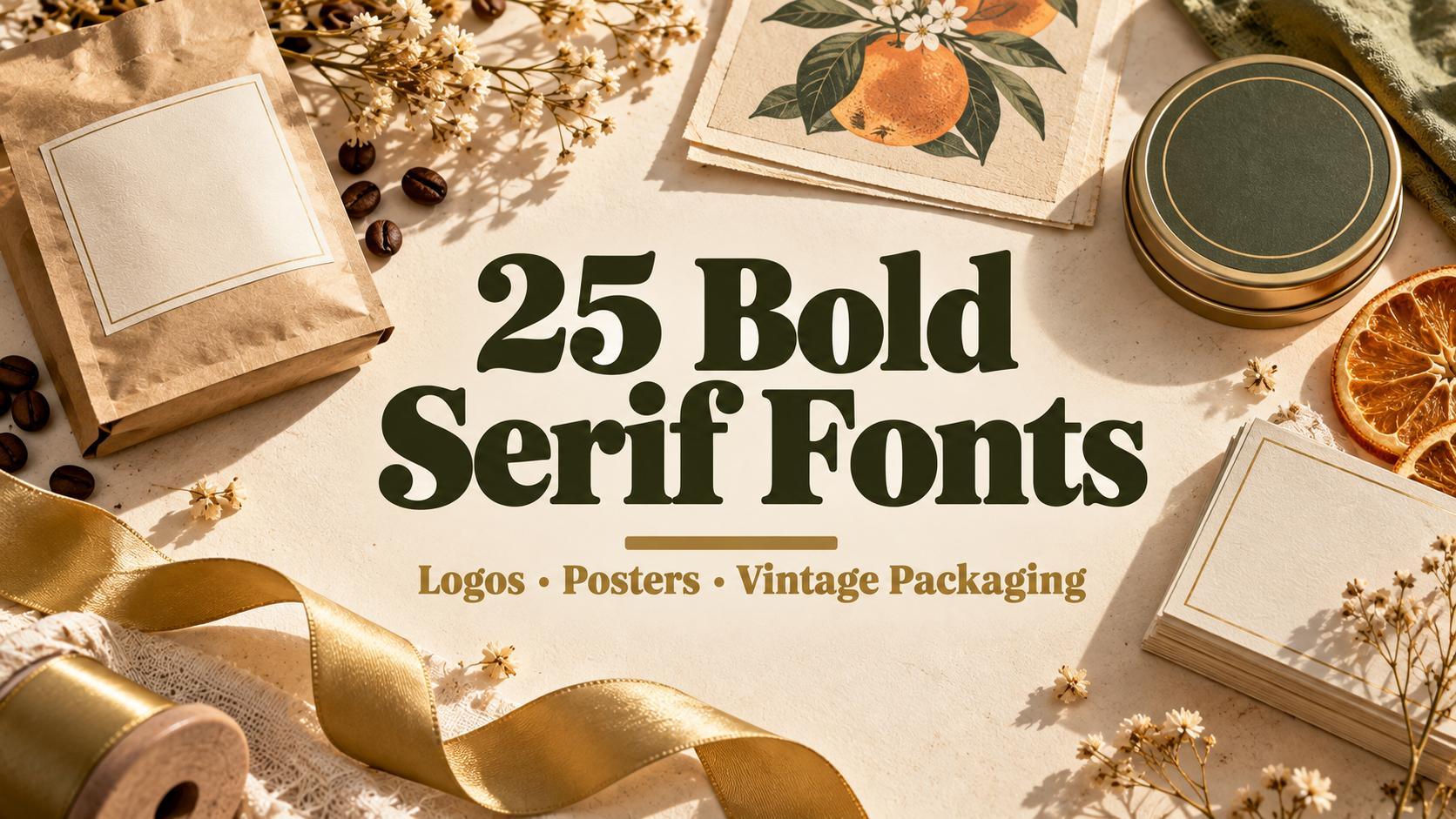
25 Bold Serif Fonts for Logos, Posters and Vintage Packaging
Bold serif fonts combine the character of classic serifs with the weight of a headline font. They make logos look confident, posters impossible to miss and packaging feel warm and memorable, especially when the style leans vintage.
This collection brings together 25 bold serif fonts from Fontspring, grouped by where they work best: logos, posters and vintage packaging. Each entry describes how the letters look, what the font does well and how to use it.
Bold Serif Fonts for Logos
A logo has to work large on a sign and small on a business card. These bold serif fonts are dense, clear and confident, so a brand name stays readable at any size.
1. Delvona Font by Mulkan Nazir
Best For: brand logos, shop signage, bold website headers
Delvona Font is heavy and compact, with short, sharp serifs and a slightly retro rhythm. In the preview it sits between bright stripes in blue and red, and the word reads instantly even from a distance.
The family has nine styles. It works well for wordmarks that need to be bold without looking old-fashioned, and it holds up on signs, shop windows and social media profile images.
2. Acosta Font by Zane Studio
Best For: fashion and lifestyle logos, boutique branding, product names
Acosta Font is a strong serif with crisp contrast and one memorable detail: the s in the preview has a curling tail that turns the brand name into a small signature.
The preview lists 18 fonts in nine weights with obliques and a variable font. That range lets one family cover the logo, the tagline and the website headings.
3. Honest Font by Diego Aravena
Best For: friendly brand logos, food and drink branding, headlines
Honest Font is dark, solid and very readable, with sturdy serifs and a warm, approachable shape. The pink preview shows how confidently it fills a wide space.
The preview mentions seven weights plus matching italics, 14 styles in total. The heaviest weight is made for the logo, the lighter ones for menus and product descriptions.
4. Chabrier Font by Dieter Hofrichter
Best For: premium logos, restaurant branding, book and label titles
Chabrier Font combines round, almost geometric bowls with classic serifs. The preview sums it up as geometry and elegance, and the bold weight looks rich and calm at the same time.
The preview lists eight weights and 16 styles. It is a good choice for a brand that wants a bold serif with a more refined, grown-up tone.
5. Archeron Pro Font by Olivier Gourvat
Best For: wide wordmarks, café and bakery logos, packaging titles
Archeron Pro Font is wide and soft, with bracketed serifs and warm curves. In the preview it is shown in a light brown on grey, and even the bold weight feels welcoming.
The family has 21 styles. Its width makes short names look generous and stable, which suits logos for cafés, bakeries and small shops.
6. Askan Font by Dieter Hofrichter
Best For: editorial logos, publishing brands, strong headlines
Askan Font is a contemporary serif with firm, slightly angular serifs. The preview shows the black weight: dense, confident and very clear.
The preview describes it as a family of 18 fonts, romans with matching italics. It suits brands that want a bold serif with a serious, editorial voice.
7. Norfolk Font by AF Studio
Best For: logos with a tagline, labels, business cards
Norfolk Font is a pair: a bold serif combined with a narrow sans serif. The preview shows the dark serif name over a large outlined version, which hints at how the two parts work together.
The designer kept it simple on purpose: there are no alternate characters, only ligatures that stop letters from colliding. It supports many Latin-based languages, including English, French, German, Spanish and Portuguese, so the same logo system can travel.
Bold Serif Fonts for Posters
Posters need letters that catch the eye from across the room. Heavy weights, high contrast and playful shapes make these fonts ideal for headlines, campaigns and events.
8. Abruzzo Font by Emil Bertell
Best For: event posters, magazine covers, bold campaign headlines
Abruzzo Font is a high-contrast bold serif, as the preview says, with heavy vertical strokes and sharp, thin details. Set in white over a black-and-white photograph, it looks like a film or festival poster.
Use it large and tight: a single word or a short line across the top of a poster. Its contrast gets lost at small sizes, so let a simple sans serif carry the dates and details.
9. ZT Bros Oskon 90s Font by Khairun Nas
Best For: retro posters, fashion campaigns, album covers
ZT Bros Oskon 90s Font has a nostalgic, nineties editorial feel. The preview stacks the name in a tall, cream-coloured display style over a dark photograph.
The preview lists 72 styles, including condensed, expanded and italic versions. That makes it easy to build a whole poster, from a narrow headline to a wide subtitle, with one family.
10. Prody Font by Estudio Calderón
Best For: posters, social media graphics, friendly campaign headlines
Prody Font describes itself in the preview as bold, fun and comfy, and the letters live up to it: soft serifs, round shapes and a relaxed, happy weight.
The preview shows four weights, from Regular to Bold. It is a good poster font for brands that want to sound cheerful rather than serious.
11. Firelli Font by Teddy Derkert
Best For: sale posters, food packaging, stickers and badges
Firelli Font is chunky and rounded, with short, soft serifs. The preview surrounds the name with sticker-style badges, and the font itself looks like it belongs on a label or a price tag.
The family has 14 styles. It is made for loud, short messages: a product name, a sale headline or a badge on a box.
12. Courage Font by Neil Summerour
Best For: posters, book covers, retro headlines
Courage Font is very heavy, with ball-shaped terminals and deep, round counters. The preview shows sample glyphs in tiles, and even the question mark looks bold and friendly.
The family has two styles. Treat it as a headline font only and give it plenty of space; one or two words are enough to fill a poster.
13. Cooper Poster Font by FontHaus
Best For: posters, retro signage, playful headlines
Cooper Poster Font has the soft, rounded serifs and heavy, cushioned shapes of the classic Cooper style. In the preview it is set in bright pink above a paint brush, and it looks warm and cheerful.
It is a font for big, friendly headlines. Pair it with a clean sans serif and keep the palette bold to match its seventies energy.
14. Blood Orange Font by Emil Bertell
Best For: juice and food packaging, posters, restaurant signage
Blood Orange Font is heavy and bouncy, with round bowls and lively, uneven rhythm. The preview sets it over a glowing orange, with the tagline luscious and fragrant.
It works best for food, drink and anything with a juicy, fresh mood. Keep the word short so the playful shapes have room to show.
15. Brado Quena Font by Sign Studio
Best For: event posters, boutique signage, bold invitations
Brado Quena Font combines large, round bowls with flowing curves, and the Q in the preview swings into a long tail. It looks bold and elegant at once.
The family has five styles. Use it for a headline that should feel both strong and graceful, such as an event poster or a boutique sign.
Vintage Bold Serif Fonts for Packaging
Vintage bold serif fonts bring a warm, nostalgic look to labels and boxes. Soft curves, swashes and retro details make a product feel handmade and friendly.
16. Pockota Font by Nasir Udin
Best For: coffee and snack packaging, retro labels, café branding
Pockota Font is described in the preview as a retro display serif family. The regular is heavy and soft, and the italic below it adds a friendly, handwritten swing.
The family has 12 styles. Pair the upright for the product name with the italic for the flavour, and a small label already looks like a finished design.
17. Chewie Font by Jason Harcombe and Max Saille
Best For: retail packaging, shopping bags, store signage
Chewie Font is heavy, friendly and very round. The preview says it is perfect for retail and print, and it shows the name on a navy background next to a yellow shopping bag.
The family has seven styles. It suits shops and product lines that want a bold, cheerful identity that still looks tidy on price tags and bags.
18. Duke Charming Font by Hendry Juanda
Best For: retro packaging, candle and soap labels, seventies-style branding
Duke Charming Font is a bold serif with swashy, curling strokes, as the preview puts it. The letters lean and loop like a vintage shop sign.
Use it for product names on labels and let a plain sans serif handle ingredients or sizes. It brings a warm seventies mood to handmade goods.
19. Matolha Font by Alit Suarnegara
Best For: retro food packaging, bakery labels, groovy posters
Matolha Font is a stylish retro serif with bouncy, rounded swashes. The preview shows it in red with a layered shadow on a sunburst background, and it looks straight out of a seventies advertisement.
The preview mentions 843 glyphs, so there are plenty of alternates and swashes to play with. Pick a few for the brand name and keep the rest of the text calm.
20. Bignord Font by AF Studio
Best For: whiskey and beer labels, barber shops, vintage badges
Bignord Font is a vintage typeface with condensed capitals and decorative spurs. In the preview it sits inside an ornamental frame, like the label of an old bottle.
The family has two styles. It works best in capitals for short names on labels, badges and signs, especially with a dark background and cream or gold lettering.
21. Baggy Font by John Beltrán
Best For: snack and candy packaging, kids’ products, playful branding
Baggy Font is a tasty retro face, as the preview says: heavy, soft and slightly squashed, like letters made from dough.
The family has two styles. It is a natural fit for food packaging and fun products, where the shapes of the letters can do the smiling.
22. Reserve Font by Neil Summerour
Best For: wine and spirits labels, gourmet packaging, restaurant branding
Reserve Font is heavy with ball terminals and graceful swashes. The preview places it over a lavender field with a wine bottle, which matches its rich, premium mood.
The preview describes it as a family of 25 serif fonts. That range makes it useful for a whole label system: a bold product name, an italic variety and a lighter weight for the small print.
23. Retro Pica Font by Creative Media Lab
Best For: groovy packaging, stickers, retro social media graphics
Retro Pica Font is a bold retro font with bouncy, curling letters. The preview sets it in several soft colours with little sparkles around it, and the mood is pure seventies fun.
The family has two styles. Use it for a short brand name or a sticker design, and give each letter room so the curls do not crash into each other.
24. Benoa Font by Creative Media Lab
Best For: playful packaging, kids’ brands, colourful labels
Benoa Font is soft and chunky, and the preview calls it a versatile font family with six weights, alternates and a variable version.
The family has six styles. Its friendly shapes suit bright, illustrated packaging, and the lighter weights keep smaller text consistent with the name.
25. Paradose Font by Miftahul Habib
Best For: retro album covers, summer packaging, nostalgic social graphics
Paradose Font is a bold italic serif with a relaxed, sunny swing. The preview sets three lines over a blue sky, and the words look like a title from an old record sleeve.
The family has two styles. Its slant adds movement, so it works well for short, dreamy phrases on packaging, posters and social media.
How to Choose Bold Serif Fonts
Decide how much personality you need. Clean bold serifs such as Chabrier Font or Askan Font look serious and trustworthy. Retro designs such as Matolha Font or Retro Pica Font bring fun and nostalgia but need more space and fewer words.
Test the logo at its smallest size. A bold serif can look great on a poster and turn into a dark blob on a business card. Type your brand name into the tester on the Fontspring family page and check it very small as well as very large.
Let one bold font lead. Pair a bold serif with a simple sans serif for details, prices and body text. Two heavy display fonts on the same design usually fight for attention.
Check the licence for packaging and products. Labels, boxes and merchandise are printed and sold. Open the licensing section on each Fontspring family page and confirm the licence covers the way you will use the font.
Bold Serif Fonts FAQ
What is a bold serif font?
A bold serif font has thick, heavy strokes and the small finishing strokes, called serifs, at the ends of its letters. The weight makes it stand out, and the serifs give it more character than a plain bold sans serif.
Are bold serif fonts good for logos?
Yes, especially for brands that want to look confident and approachable. Choose a design with clear, open letters, such as Delvona Font, Honest Font or Norfolk Font, so the name stays readable at small sizes.
Which bold serif fonts look vintage?
In this list, Matolha Font, Retro Pica Font, Duke Charming Font and Bignord Font have the strongest vintage character. Cooper Poster Font and Courage Font bring a classic seventies headline look.
Where to Start
For a logo, start with Honest Font for a warm, readable wordmark or Chabrier Font for a more refined look. For posters, Abruzzo Font gives drama and Prody Font keeps things cheerful. For vintage packaging, Pockota Font is an easy all-rounder, and Matolha Font or Bignord Font add a stronger retro statement.